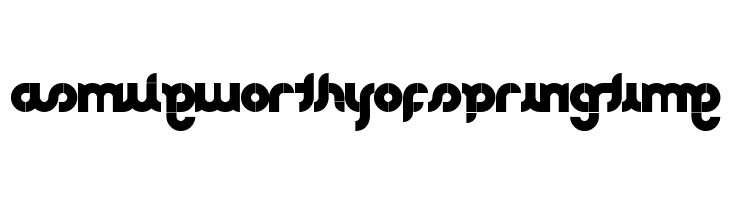
GrafCirculumBricks Font
( Fonts by Fabrika De Typos - Marcio Hirosse - fabrikadetypos.blogspot.com )
A bold, geometric font with a modular and modern design.